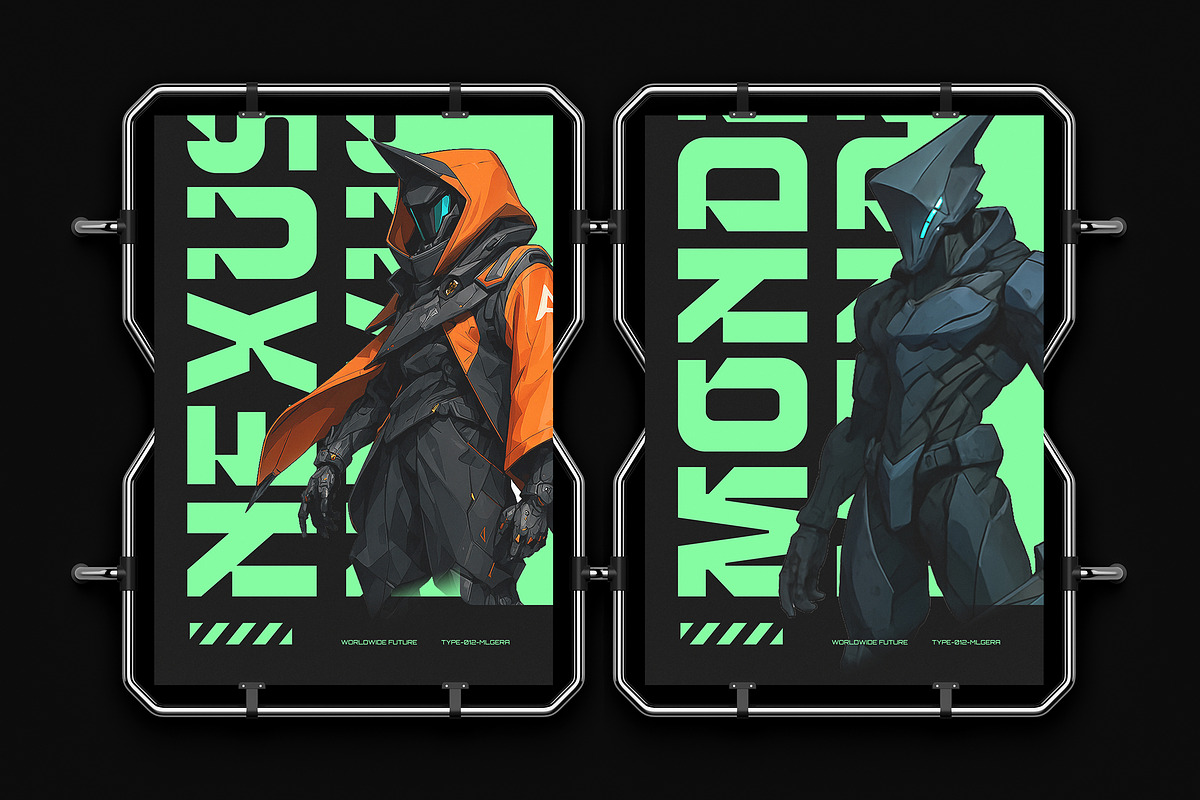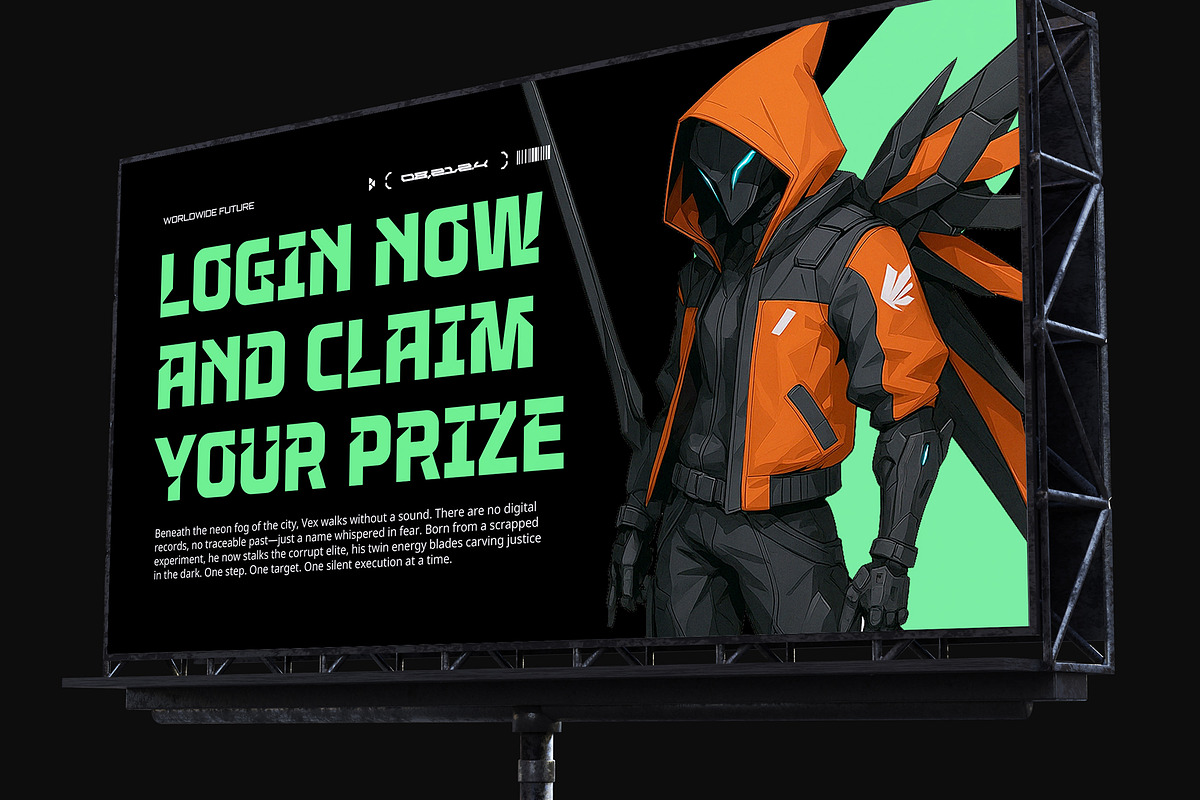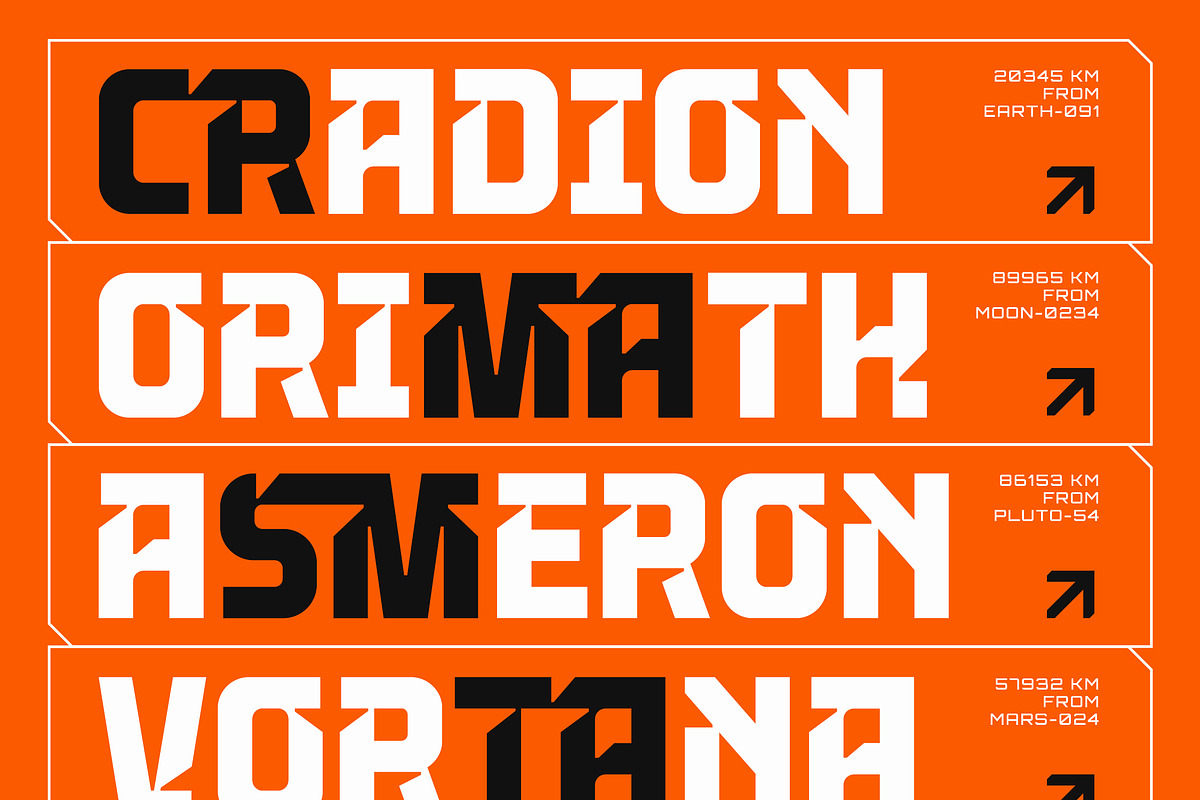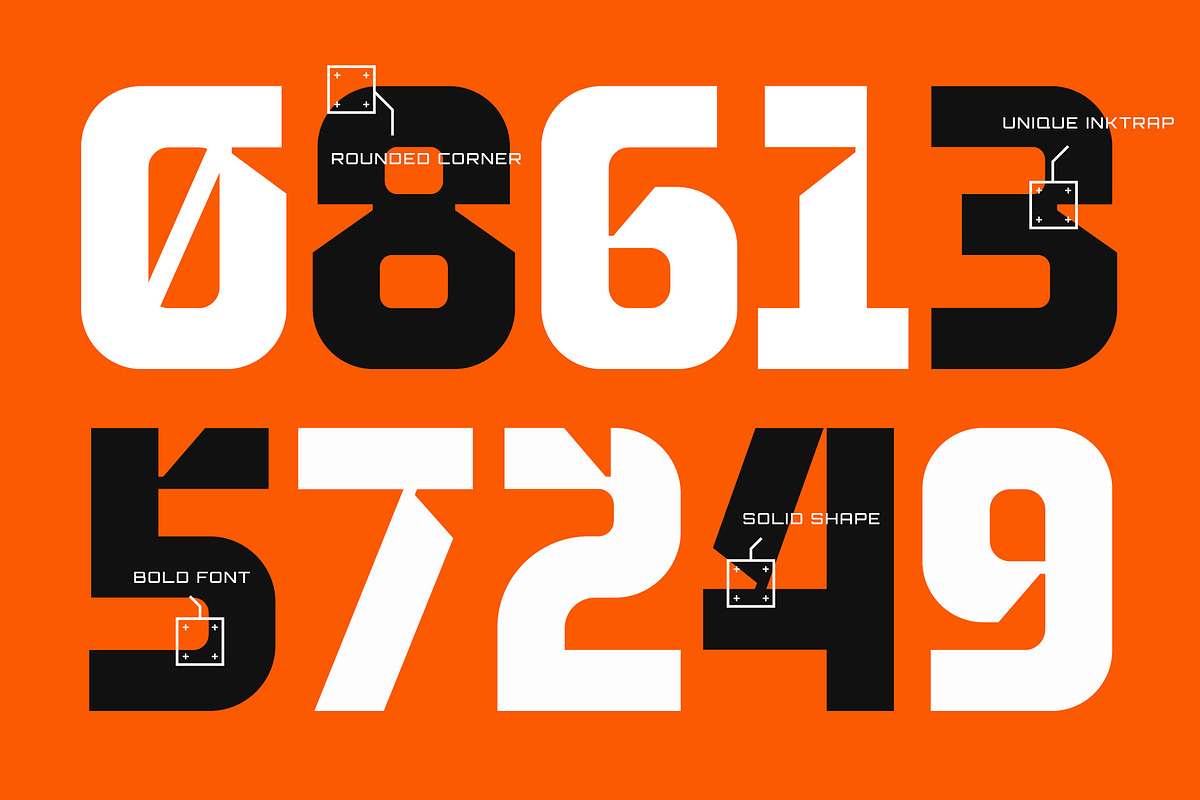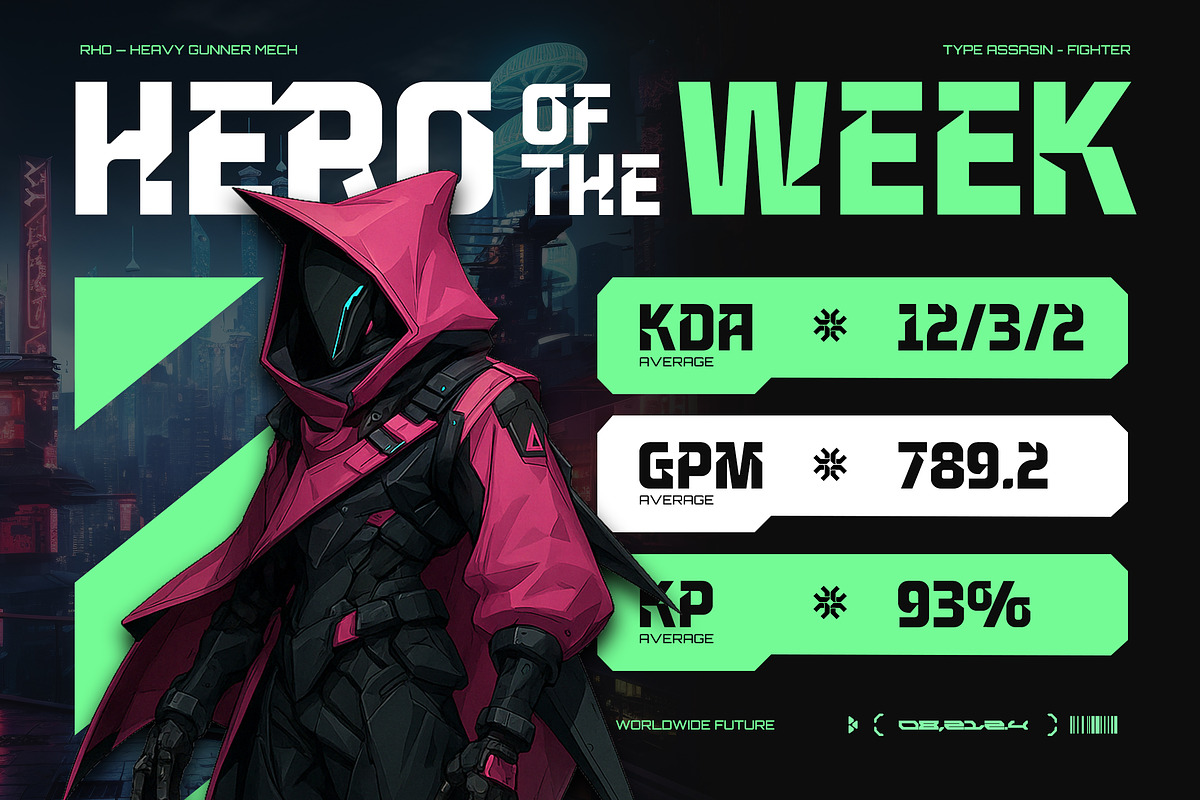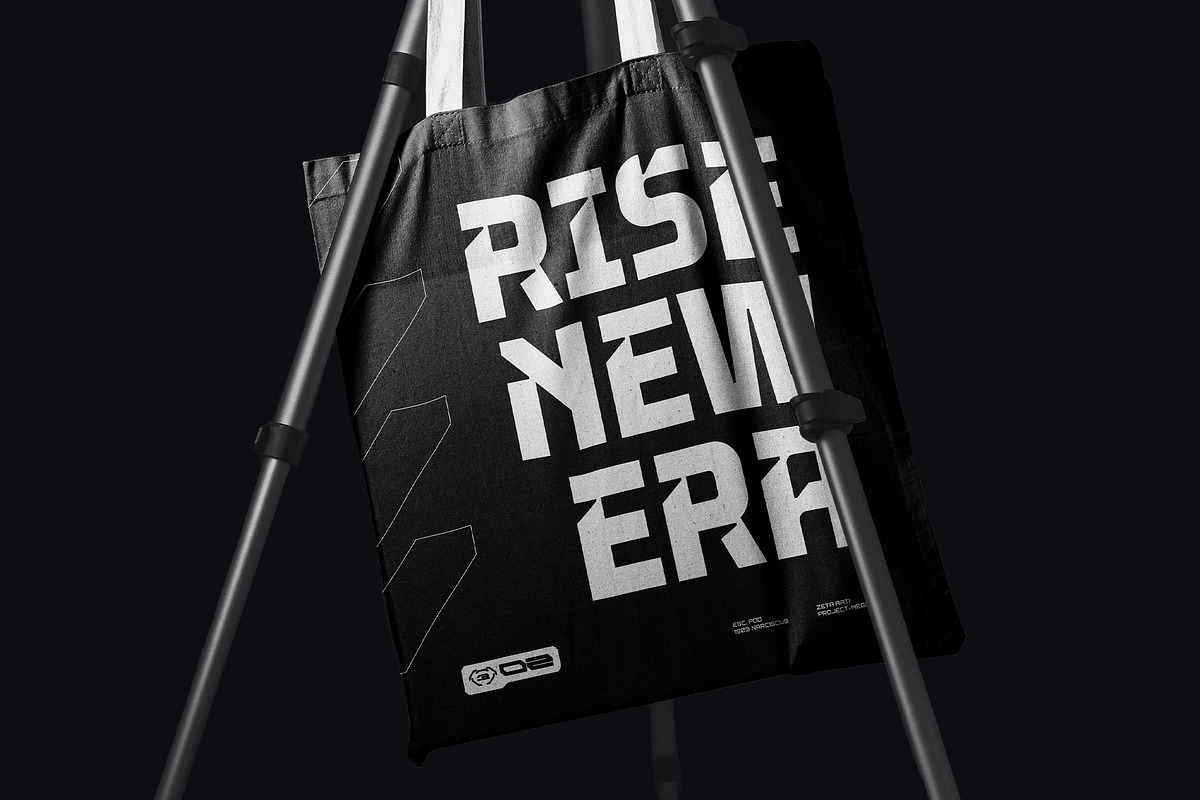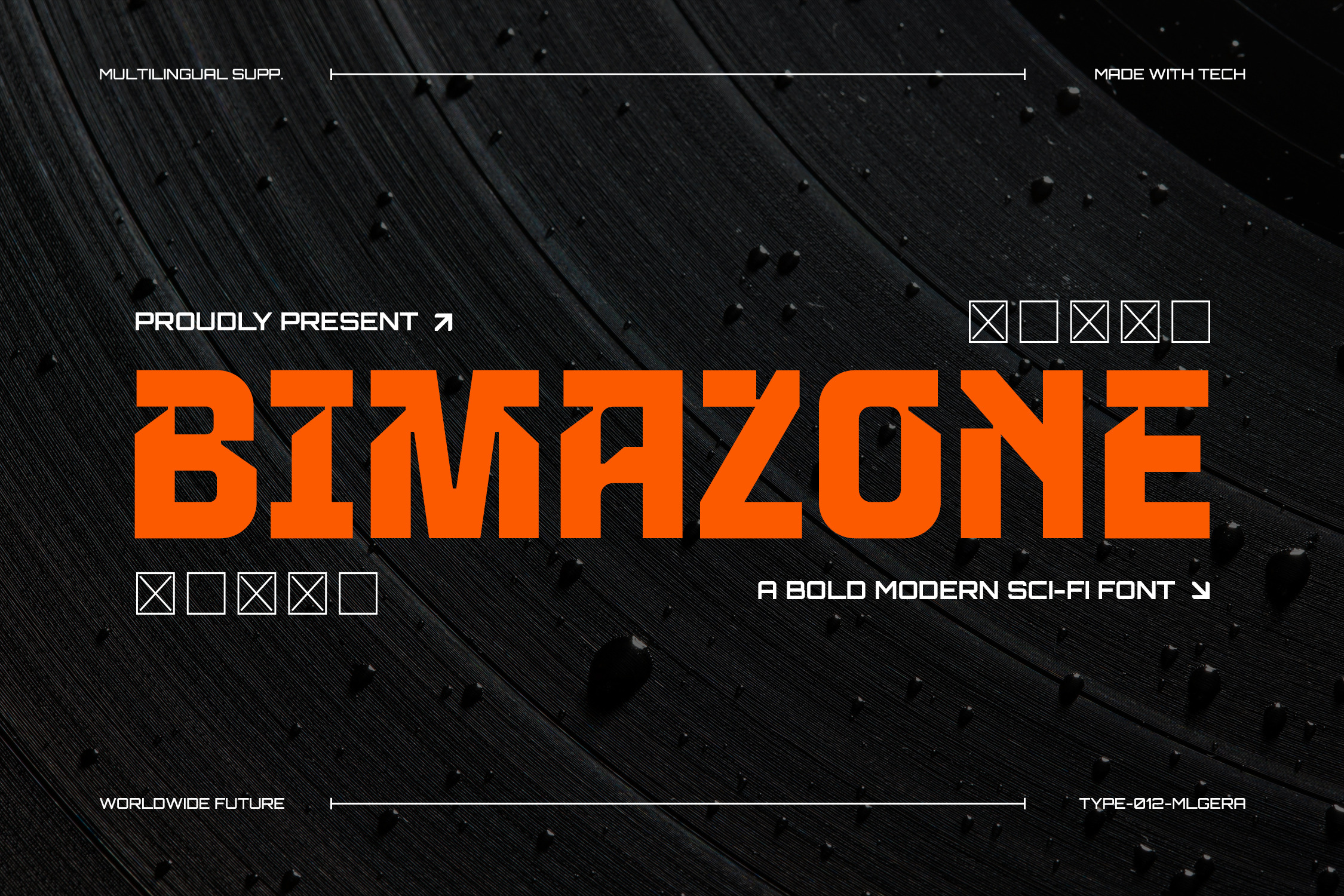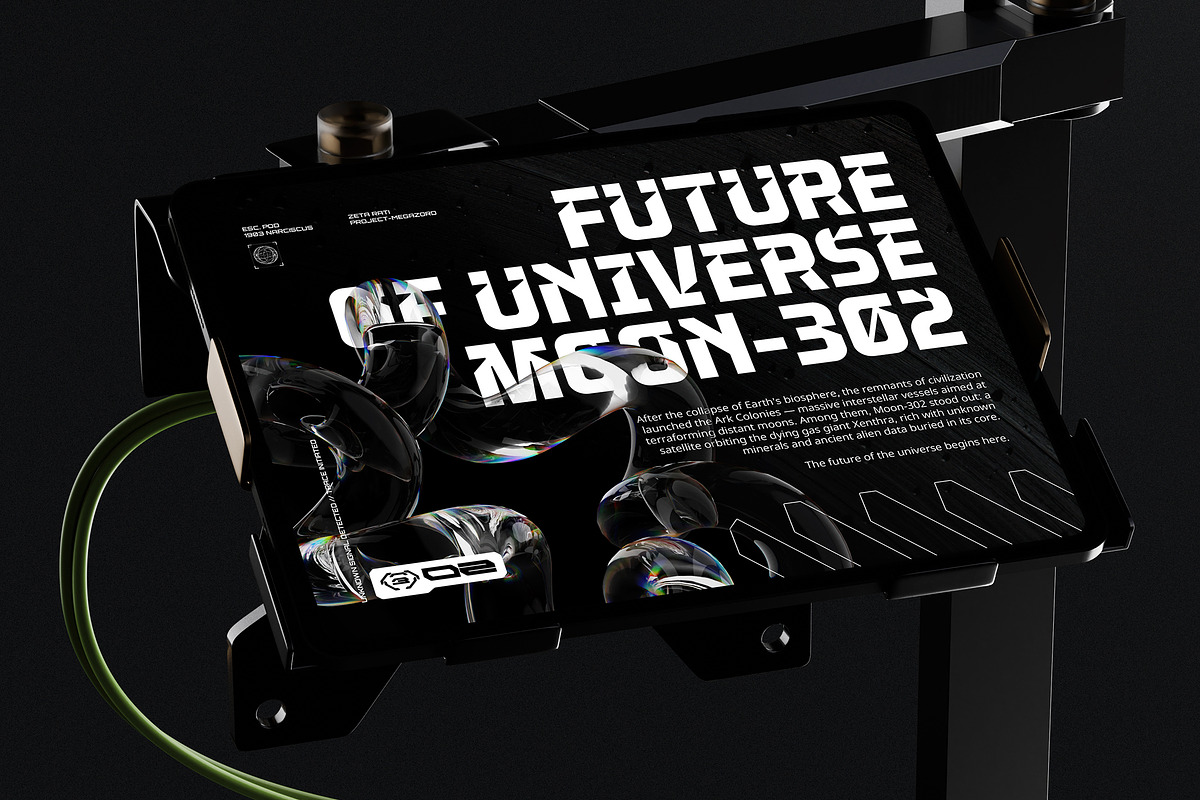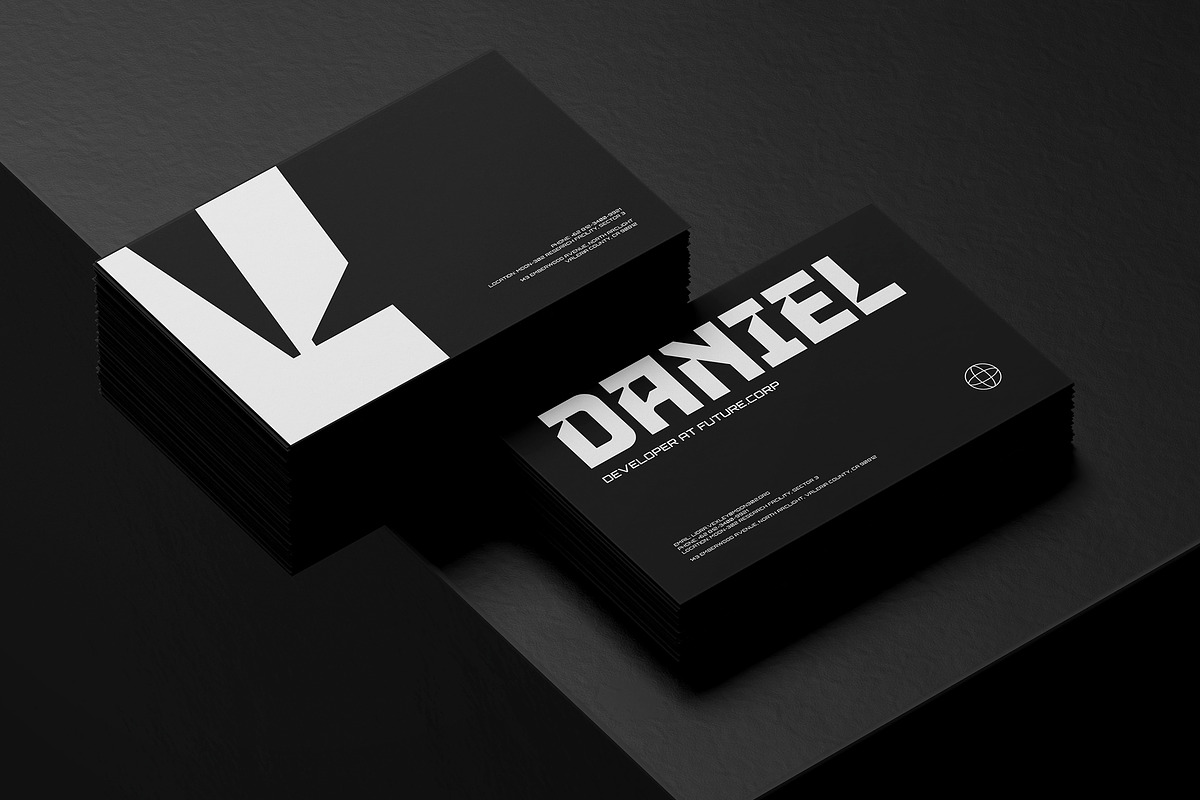
Bimazone - Bold Modern Sc-Fi Font
Bimazone - Bold Modern Sc-Fi Font - Futuristic Geometric Gaming Display Font
Bimazone is a bold, modern, and striking sci-fi display font designed to make an undeniable impact, with futuristic typeface and geometric shapes combined with unique ink traps and subtly rounded corners, giving it a distinct and powerful presence, perfect for a wide range of creative projects with strong visual identity, such as dynamic posters, digital content, motion graphics, bold corporate branding, gaming logos, headlines, cyberpunk designs, urban streetwear branding, and any project aiming for a cutting-edge, worldwide future look.